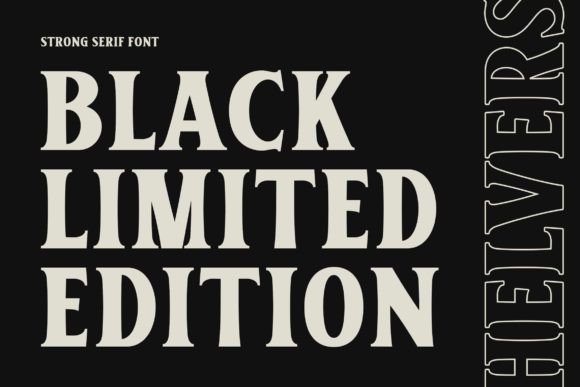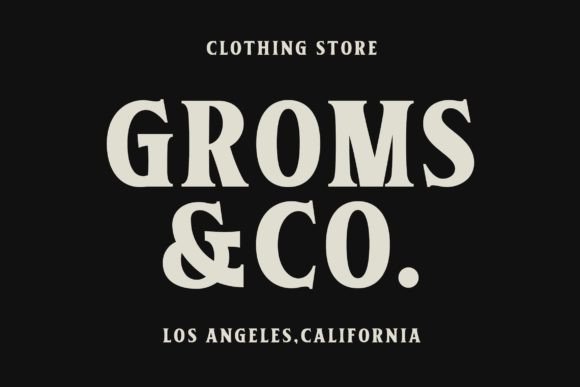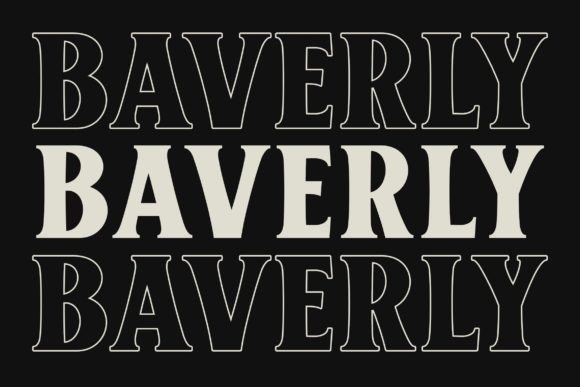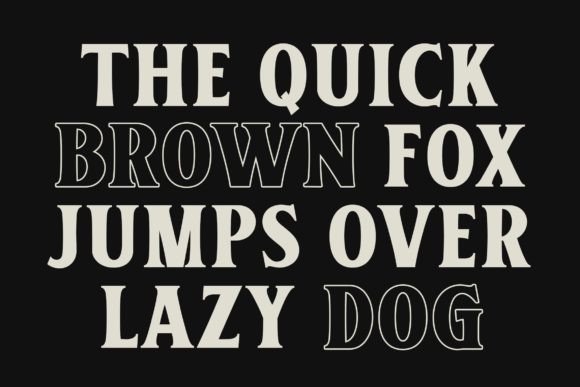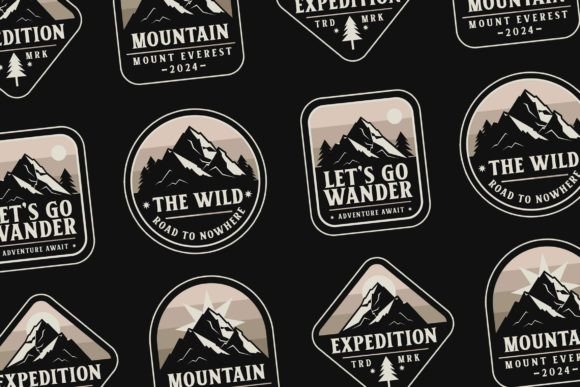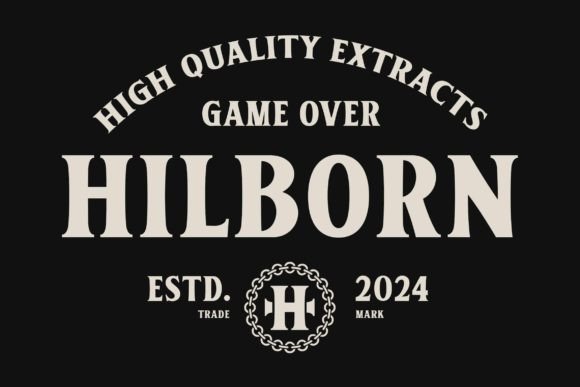
Introduction to Helvers Font
Helvers is a modern and sleek-looking serif font.
Its clean and organized appearance will definitely help you create unique designs that will make an impact on your audience .
Key Features of Helvers Font